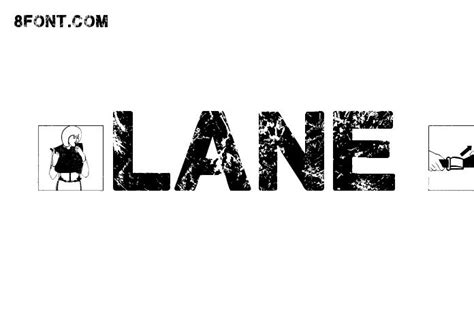
Plane Crash Font: Design, Usage And Examples
Have you ever stumbled upon a font that just screams drama and intensity ? Well, buckle up, because we’re diving deep into the world of the plane crash font ! Now, I know what you might be thinking: “Plane crash? That sounds morbid!” But trust me, in the realm of design, it’s all about evoking a certain feeling, and this font does it with gusto . We’re going to explore what exactly defines a plane crash font, its common characteristics, where you might have seen it in action, and how you can use it effectively in your own projects. So, whether you’re a seasoned designer or just starting, get ready to add a touch of edgy sophistication to your typographic arsenal.
What Exactly is a Plane Crash Font?
Alright, guys, let’s get down to brass tacks. What is a plane crash font, anyway? It’s not like there’s an official category labeled “fonts inspired by aviation disasters” in your font library. Instead, the term “plane crash font” typically refers to a style of typography that emulates a sense of destruction , damage , or urgent distress . Think of it as the typographic equivalent of a Hollywood action movie – gritty, intense, and visually striking. These fonts often feature distressed textures, irregular lines, and a generally chaotic appearance. They might look like they’ve been through the wringer, with missing chunks, blurred edges, or uneven spacing. The overall effect is one of instability and raw energy, designed to grab attention and convey a sense of urgency or danger. You’ll often find that designers use the plane crash font to evoke feelings of suspense, fear, or excitement, making it a popular choice for projects that need a strong visual impact. Moreover, these fonts are not always literal interpretations of a plane crash; they simply embody the aesthetic of something that has been broken, damaged, or otherwise compromised. This makes them versatile tools for designers looking to add a bit of edge to their work, without necessarily referencing a specific tragedy. In essence, a plane crash font is all about creating a visual representation of chaos and resilience, capturing the essence of something that has been through a lot but is still standing. So, next time you see a font that looks like it’s been dragged through the mud and back, you’ll know you’ve likely encountered a plane crash font in action.
Key Characteristics of Plane Crash Fonts
So, what makes a plane crash font a plane crash font? It’s all in the details, my friends. These fonts have some very distinct characteristics that set them apart from your average, run-of-the-mill typeface. Let’s break down the key elements that define this dramatic style.
• Distressed Textures: This is probably the most defining characteristic. Plane crash fonts often feature rough, uneven textures that make the letters look like they’ve been weathered, eroded, or otherwise damaged. Think of scratches, cracks, and missing chunks – the more imperfect, the better.
• Irregular Lines: Forget about clean, crisp lines. Plane crash fonts thrive on irregularity . You’ll often see shaky, uneven strokes that add to the sense of instability and chaos. It’s like the letters are barely holding themselves together.
• Uneven Spacing: Consistent kerning? Not here! Plane crash fonts often play with uneven letter spacing to create a sense of unease and visual disruption. Some letters might be crammed together, while others are spread far apart, adding to the overall sense of disarray.
• Bold and Heavy Weight: To maximize impact, plane crash fonts are typically bold and heavy . This helps them stand out and command attention, even with all the distressed textures and irregular lines.
• Grunge and Grime: Many plane crash fonts incorporate grunge and grime elements, such as splatters, stains, and smudges. This adds to the sense of decay and gives the font a more realistic, worn-out look.
• Asymmetrical Design: Symmetry is the enemy of the plane crash font. These fonts often feature asymmetrical designs , with uneven letterforms and unbalanced compositions. This adds to the overall sense of chaos and visual interest.
• Exaggerated Serifs (Sometimes): Some plane crash fonts exaggerate the serifs, making them sharp, jagged, or otherwise distorted. This can add to the sense of danger and edginess.
These characteristics all work together to create a font that is visually striking, attention-grabbing, and full of character. When used effectively, a plane crash font can add a powerful dose of drama and intensity to any design project.
Where Have You Seen Plane Crash Fonts?
Okay, now that we know what a plane crash font is and what makes it tick, let’s talk about where you might have actually seen it in action. These fonts aren’t exactly subtle, so you’ve probably encountered them more often than you realize. Here are some common places where plane crash fonts tend to pop up:
• Movie Posters: Plane crash fonts are a go-to choice for movie posters , especially in genres like action, thriller, horror, and post-apocalyptic. They instantly convey a sense of danger, suspense, and high stakes, making them perfect for grabbing viewers’ attention.
• Video Game Titles: Similar to movie posters, video game titles often use plane crash fonts to create a sense of immersion and excitement. They’re particularly popular in games with dark, gritty, or action-packed themes.
• Album Artwork: Musicians looking to create a raw, edgy vibe often turn to plane crash fonts for their album artwork . They’re especially common in genres like metal, punk, and industrial, where the music itself is often characterized by its intensity and aggression.
• Book Covers: Book covers , especially those in the thriller, suspense, and horror genres, frequently utilize plane crash fonts to hint at the danger and intrigue within the pages.
• Branding for Extreme Sports or Adventure Companies: If a brand wants to convey a sense of adventure , risk , and excitement , a plane crash font can be an effective way to do it. You might see them used in logos, websites, and marketing materials for companies that specialize in extreme sports, outdoor adventures, or survival gear.
• Event Posters: Event posters for concerts, festivals, and other gatherings that want to project a sense of energy and excitement might also incorporate plane crash fonts into their designs.
• T-Shirt Designs: T-shirt designs , particularly those with a rebellious or edgy vibe, can benefit from the visual impact of a plane crash font.
The key takeaway here is that plane crash fonts are most often used in contexts where a sense of drama, intensity, or danger is desired. They’re not exactly the font you’d use for a wedding invitation or a children’s book, but they can be incredibly effective in the right setting. Keep an eye out, and you’ll start noticing them everywhere!
How to Use Plane Crash Fonts Effectively
Alright, so you’re intrigued by plane crash fonts and want to give them a whirl in your own design projects. Awesome! But before you go overboard, let’s talk about how to use them effectively . Like any design element, plane crash fonts can be powerful tools, but they can also backfire if not used with care. Here are some tips to help you make the most of these dramatic typefaces:
• Consider the Context: This is crucial . Plane crash fonts are not appropriate for every situation. Ask yourself if the font’s gritty, edgy vibe aligns with the overall message and tone of your project. If you’re designing a website for a daycare center, a plane crash font is probably not the best choice. But if you’re creating a poster for a heavy metal concert, it could be perfect.
• Use Sparingly: A little goes a long way. Plane crash fonts are very attention-grabbing, so you don’t want to overuse them. Stick to using them for headlines, titles, or other key elements that you want to stand out. Avoid using them for large blocks of body text, as they can be difficult to read.
• Pair Wisely: Choose complementary fonts that balance out the intensity of the plane crash font. A clean, simple sans-serif font can be a good choice for body text, as it won’t compete with the more dramatic headline font. Alternatively, you could pair it with a more elegant serif font to create an interesting contrast.
• Pay Attention to Legibility: While plane crash fonts are all about distress and damage , you still want to make sure your text is readable. Avoid using fonts that are so heavily distressed that the letters become difficult to decipher. Adjust the size, spacing, and color of the font to improve legibility if needed.
• Experiment with Colors and Effects: Play around with different colors and effects to enhance the impact of the font. A dark, gritty color palette can amplify the sense of danger and intensity, while a bright, contrasting color can create a more eye-catching effect. Consider adding shadows, glows, or other effects to further customize the look of the font.
• Don’t Overdo the Distressing: While distressing is a key characteristic of plane crash fonts, it’s possible to overdo it . Avoid adding too many extra textures, scratches, or other effects that can clutter the design and make the font look messy. Sometimes, less is more.
• Think About the Message: Ultimately, the goal is to use the font to enhance the message you’re trying to convey. Think about the emotions and ideas you want to evoke, and choose a font that aligns with those goals. A well-chosen plane crash font can add a powerful dose of drama and intensity to your design, helping you to connect with your audience on a deeper level.
By following these tips, you can use plane crash fonts to create visually stunning and impactful designs that grab attention and leave a lasting impression.
Examples of Plane Crash Fonts
Alright, let’s get practical! To give you a better sense of what’s out there, here are a few examples of fonts that fall into the “plane crash” category. Keep in mind that the specific names and styles may vary, but these fonts all share the key characteristics we’ve discussed.
• Urban Decay: This font is a classic example of a plane crash font, with its rough textures , uneven lines , and gritty aesthetic . It’s perfect for creating a sense of urban decay and rebellion.
• Destroyed: As the name suggests, this font is all about destruction . It features heavily distressed letterforms with missing chunks and jagged edges, making it ideal for projects that need a raw, edgy vibe.
• Grungeist: This font is a grunge lover’s dream , with its splattered textures, uneven spacing, and overall sense of chaos. It’s perfect for creating a vintage, worn-out look.
• Wasted: This font embodies the feeling of being completely wasted , with its shaky lines, distorted letterforms, and uneven spacing. It’s a great choice for projects that want to convey a sense of disarray and recklessness.
• Rusted Warfare: This font has a war-torn feel , with its corroded textures, jagged edges, and military-inspired aesthetic. It’s perfect for projects that need a sense of danger and conflict.
• Damaged Goods: This font is all about imperfection , with its uneven lines, distressed textures, and overall sense of disrepair. It’s a great choice for projects that want to embrace a raw, authentic look.
• Broken Wings: This font is a more subtle take on the plane crash aesthetic, with its slightly distressed textures and uneven lines. It’s a good choice for projects that want a touch of edginess without being too over-the-top.
These are just a few examples, and there are many other fonts out there that could be considered “plane crash” fonts. The best way to find the perfect font for your project is to experiment and see what works best. Don’t be afraid to try out different styles and combinations until you find something that truly captures the vibe you’re going for.
Conclusion
So there you have it, folks! A deep dive into the world of plane crash fonts . We’ve explored what they are, what makes them tick, where you’ve seen them, how to use them effectively, and even some specific examples to get you started. Remember, these fonts are all about evoking a sense of drama, intensity, and edginess. They’re not for the faint of heart, but when used correctly, they can add a powerful dose of visual impact to any design project. So go forth, experiment, and don’t be afraid to get a little bit dirty. With the right touch, you can harness the power of plane crash fonts to create designs that are truly unforgettable. And who knows, you might just crash-land on your next big creative breakthrough!